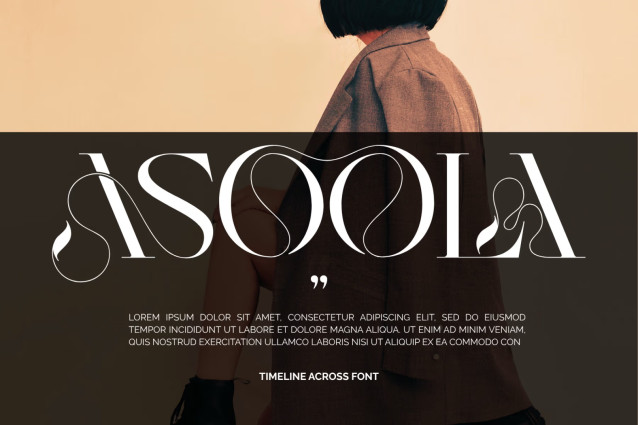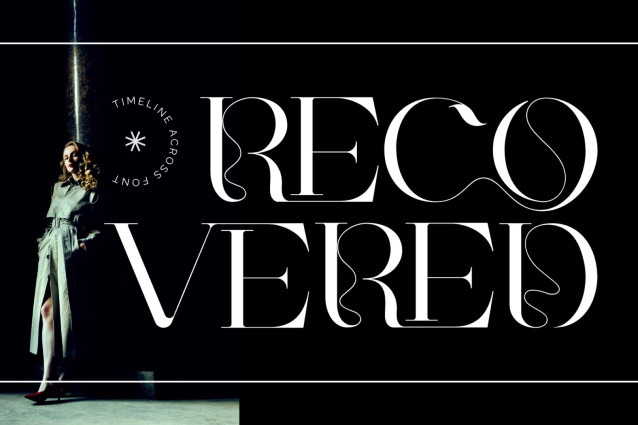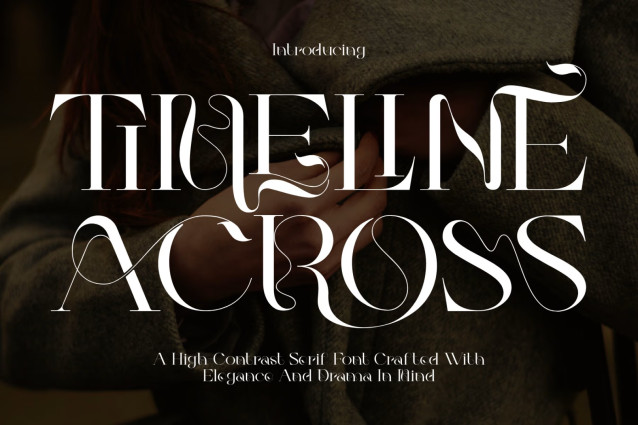
TIMELINE ACROSS – LUXURY FONT
TIMELINE ACROSS – LUXURY FONT – Modern Luxury Editorial & Art Nouveau Display Serif, modern editorial display serif designed to bring high-fashion sophistication and timeless poetic grace to your visual designs. Drawing rich inspiration from Art Nouveau curves and contemporary luxury typography, this typeface features exquisite internal wave flourishes and fluid swashes that weave effortlessly through each letterform.
With its striking high-contrast proportions and botanical-inspired terminals, TIMELINE ACROSS creates an enchanting, high-end aesthetic. It is meticulously engineered for designers creating luxury branding, high-fashion editorial covers, cosmetic packaging, wedding invitations, boutique logos, and aesthetic typography layouts. Infuse your artwork with a touch of graceful romance and unforgettable elegance using TIMELINE ACROSS.